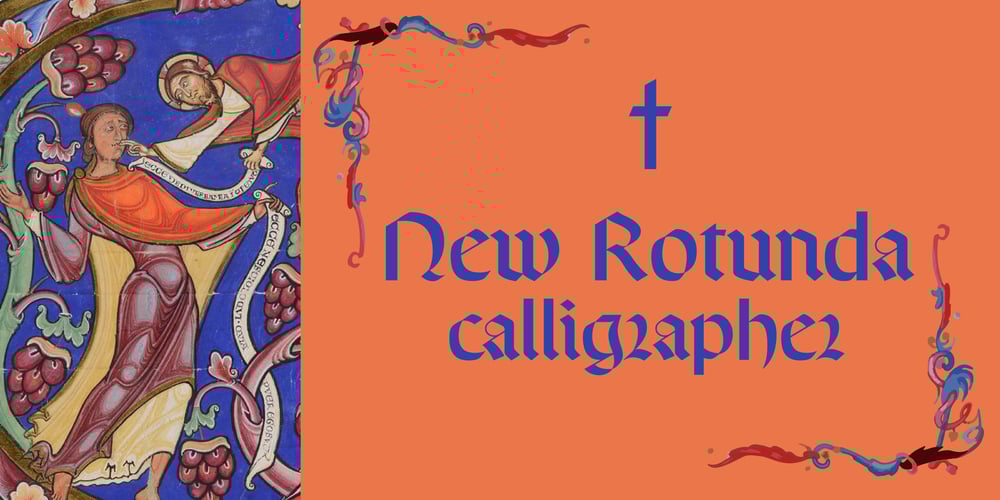
New Rotunda
New Rotunda font
New Rotunda Font Family was designed by William Lu and published by William Studio. New Rotunda contains 1 styles and family package options. This is a style of handwriting from the 10th to 13th centuries, and unlike the traditional Rotunda style, this font omits the original double trunk design, and the overall design is closer to the modern style of the Latin alphabet, more concise and easy to read.At the same time, the combination of any two curved fonts is made, and the lowercase letters d and r retain two forms, which can be replaced by themselves in opentype.